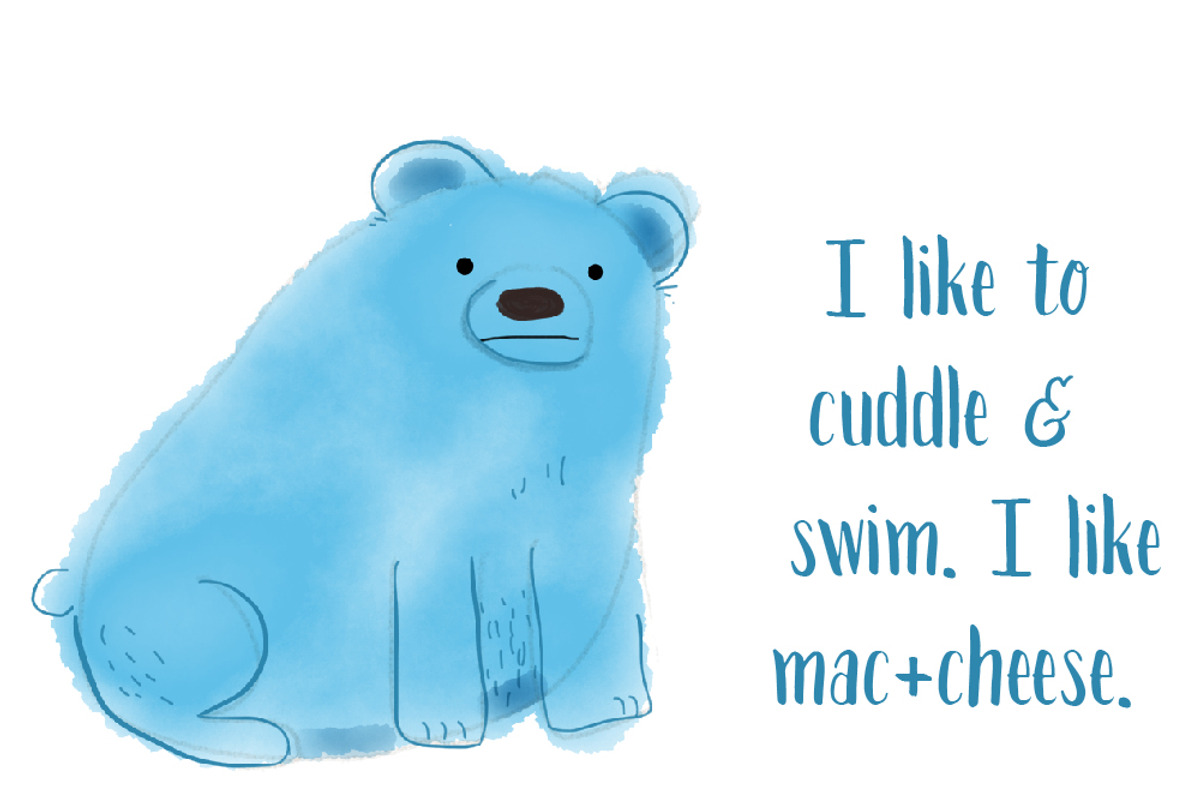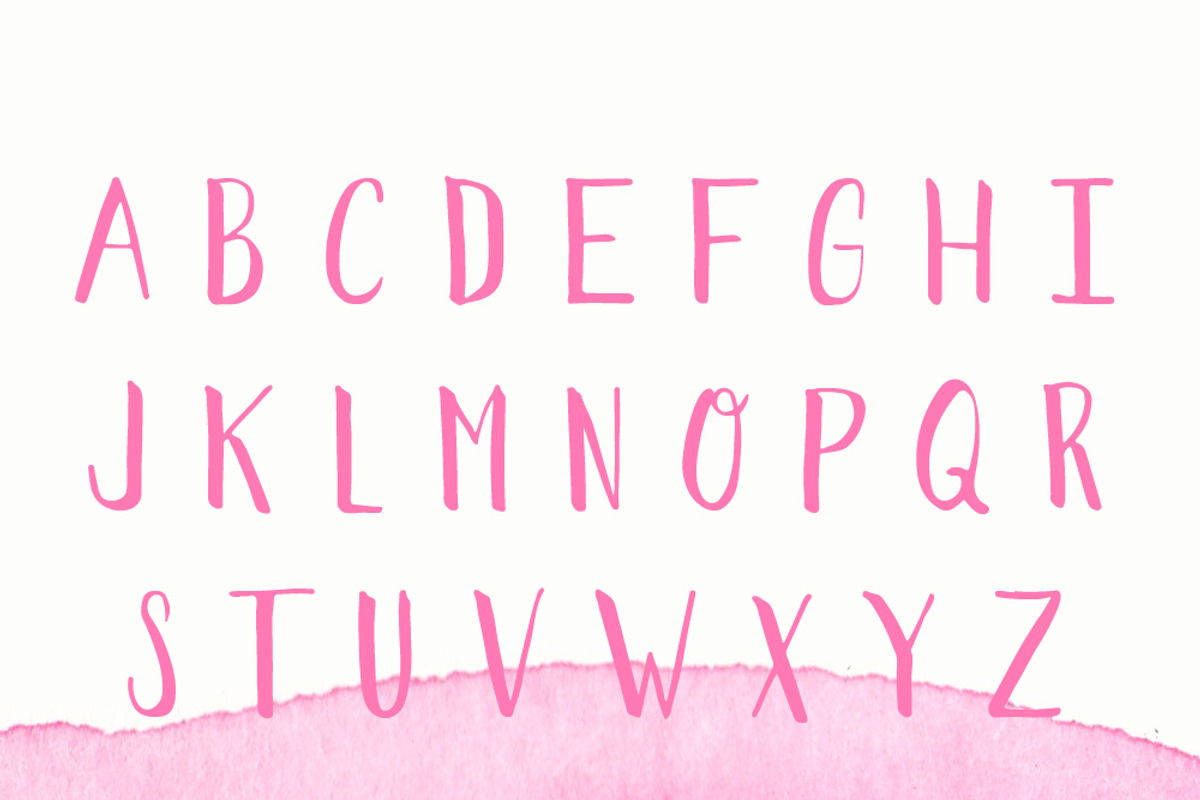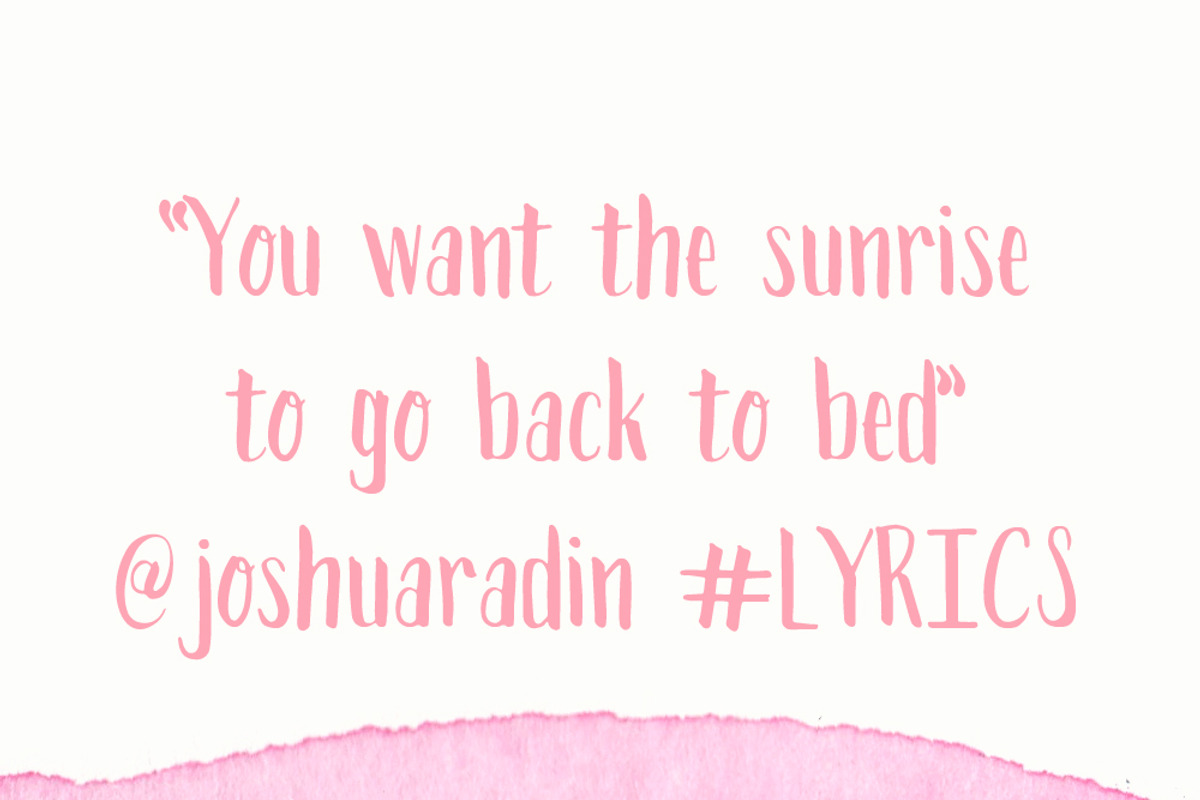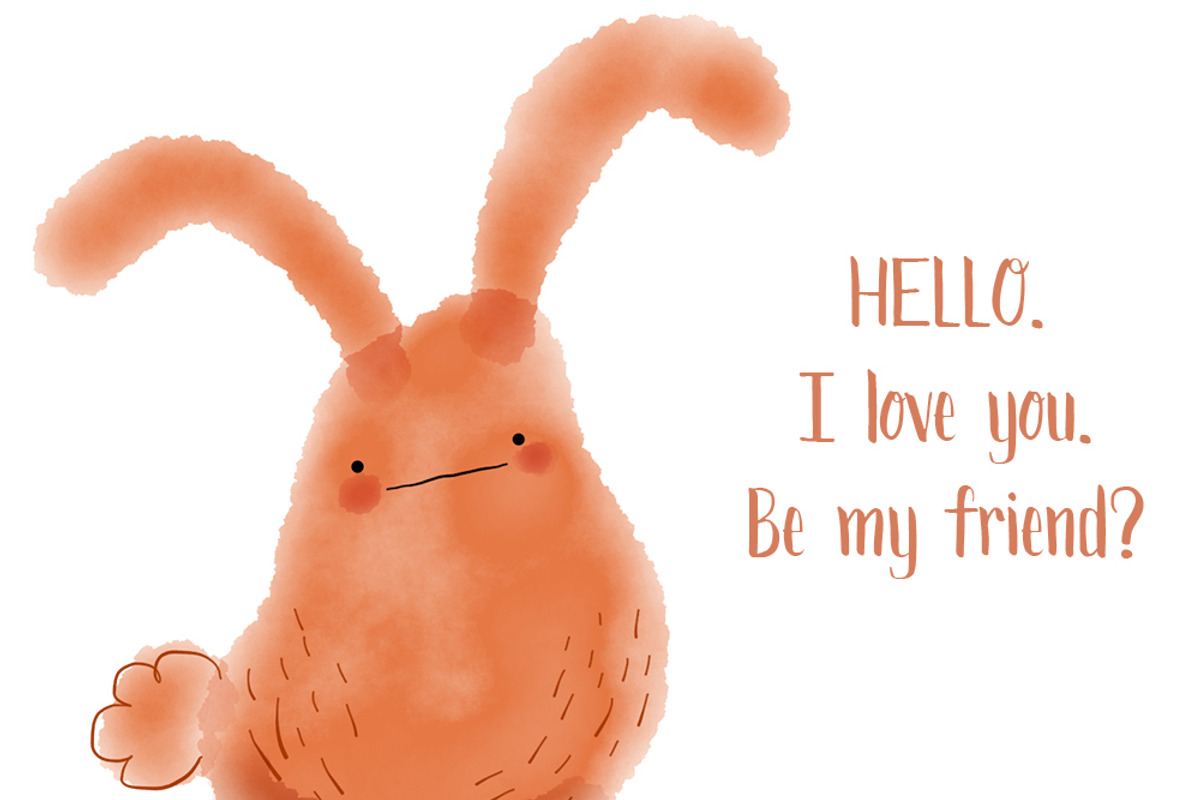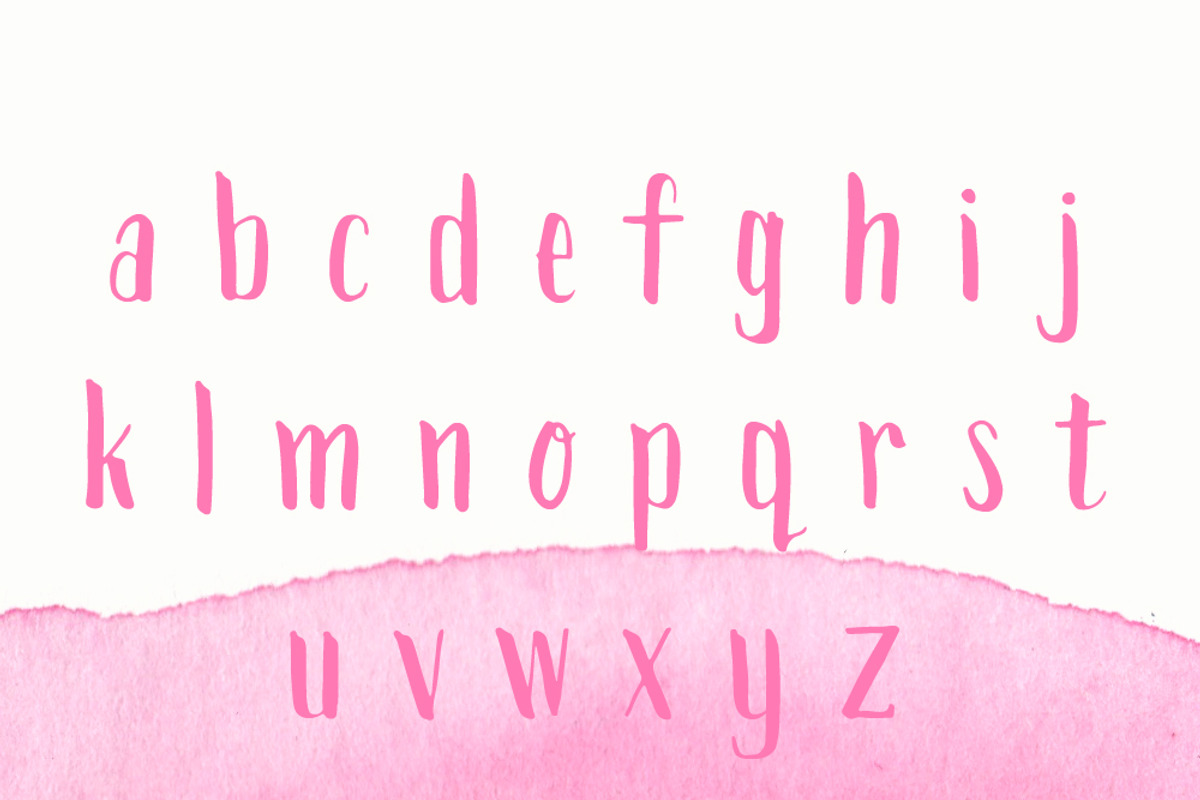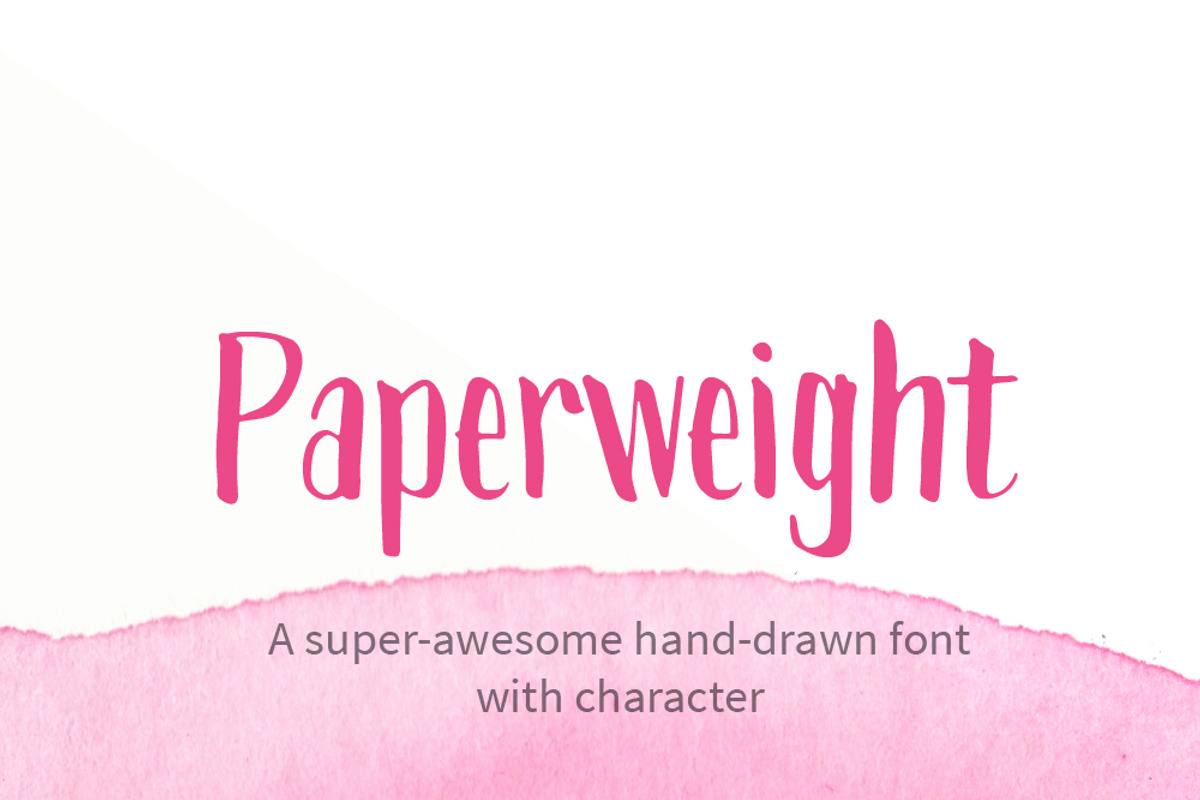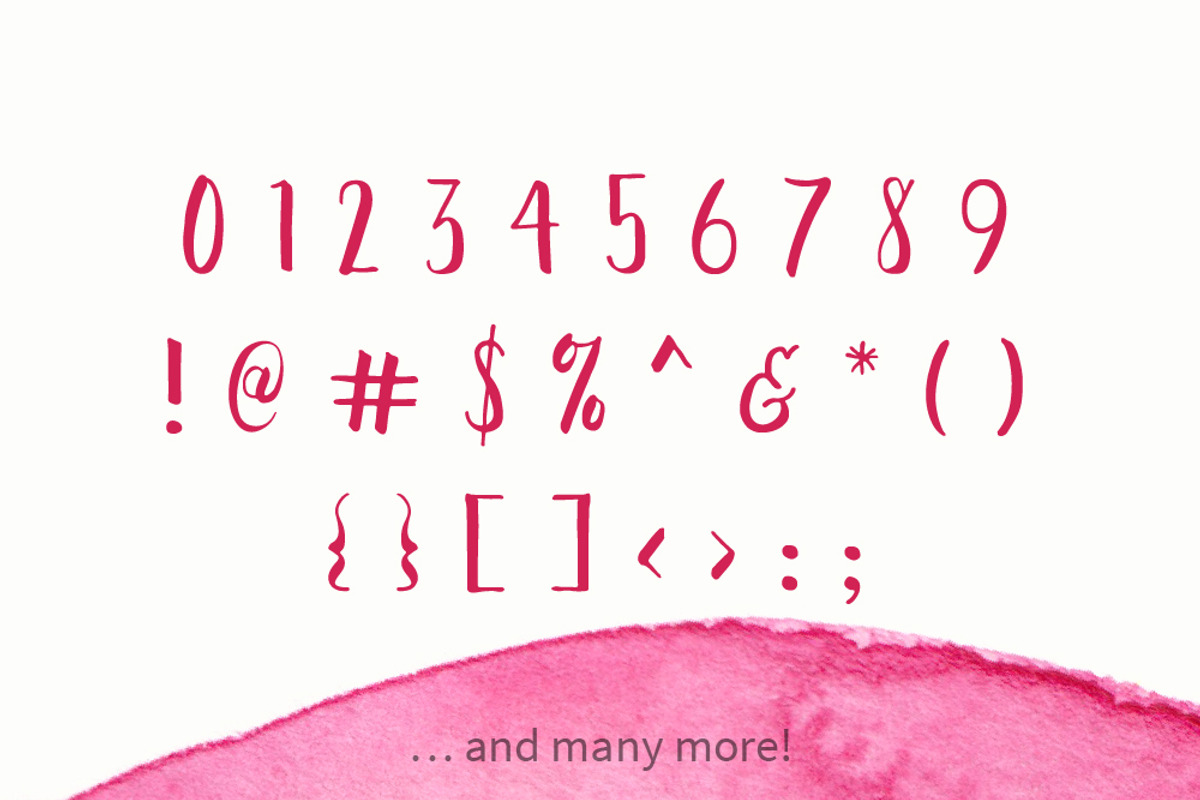
Paperweight Font
Paperweight Font by Hello Brio is a font selected for branding, posters, packaging, typography.
- The font was carefully created by hand using a thin brush marker and features a comprehensive set of glyphs including uppercase, lowercase,
Paperweight Font by Hello Brio fits naturally into Branding, posters, packaging, typography.